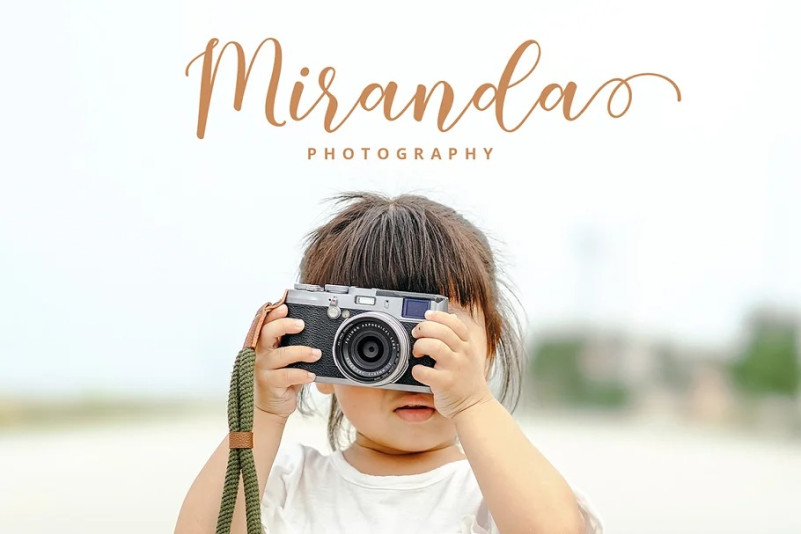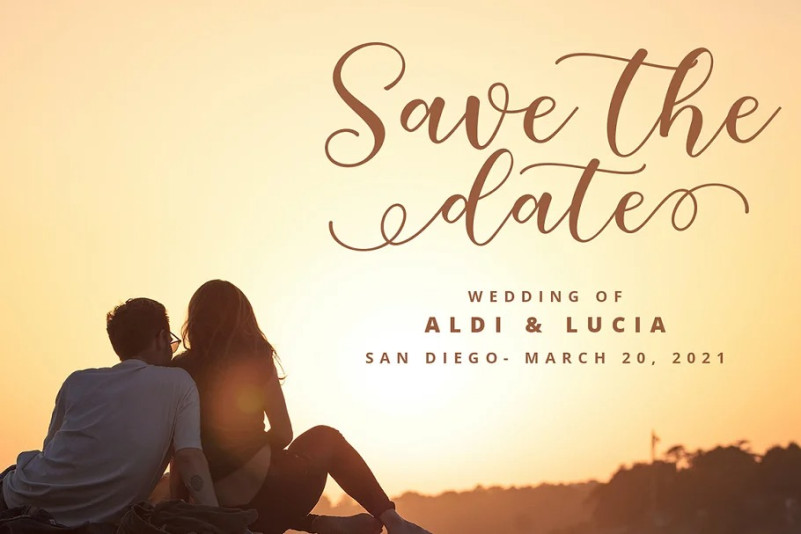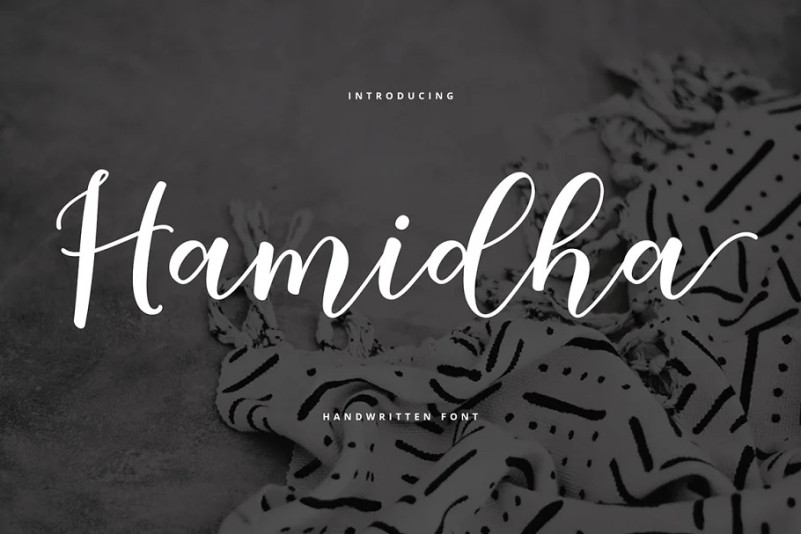
Hamidha Font
Hamidha Font is suitable use for market design developed at this time, this font has a model Trendy, natural and gentle, with this font you can take advantage of the opportunity in every moment of one wonderful way to highlight the celebration of the feast of your best, because this font will be advocates for purposes such as wedding invitations, party, graduation, birthday, gathering, etc.